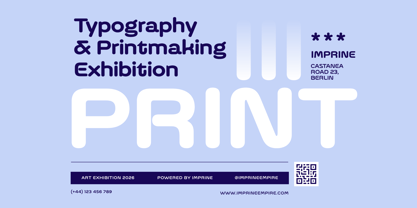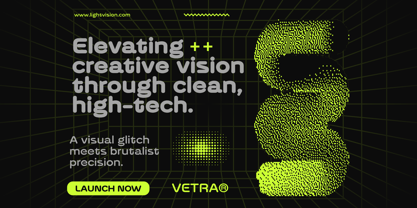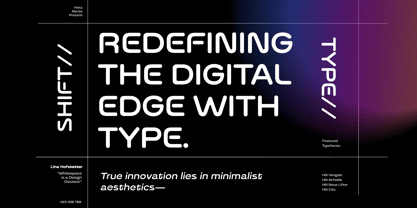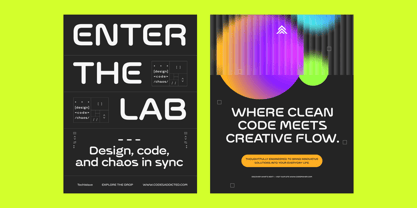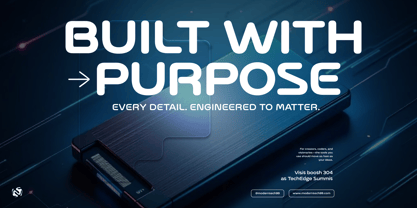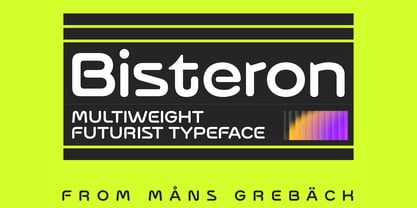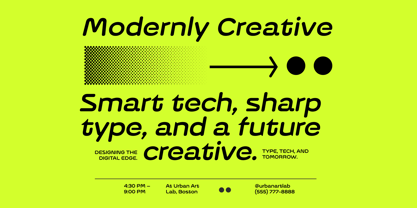
Bisteron
Bisteron is a clean futurist typeface with a rounded, technical feel and a calm confidence in its shapes. Built around soft corners and controlled geometry, it balances friendliness with precision. The letterforms feel engineered rather than drawn, giving text a sense of structure and motion without becoming cold. Its multiweight family allows the tone to shift from light and airy to solid and assertive, while the italics introduce a subtle forward lean that feels smooth rather than aggressive. Bisteron was designed to be flexible and readable, working just as well in short statements as in longer passages. It feels at home in modern interfaces, experimental visuals, and imagined futures where technology is approachable and thoughtfully designed.
Bisteron